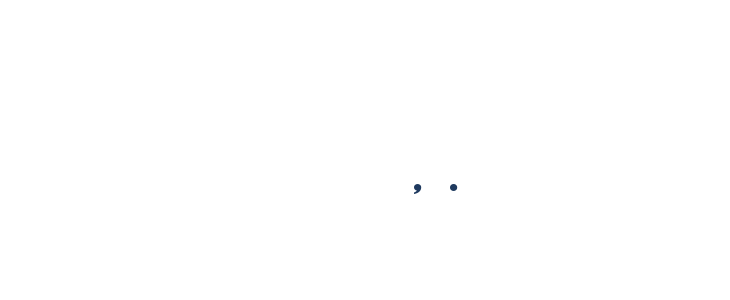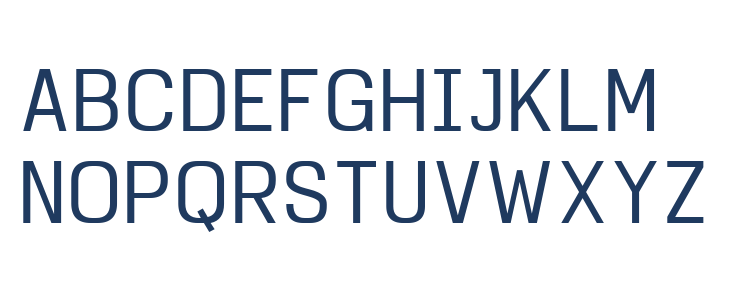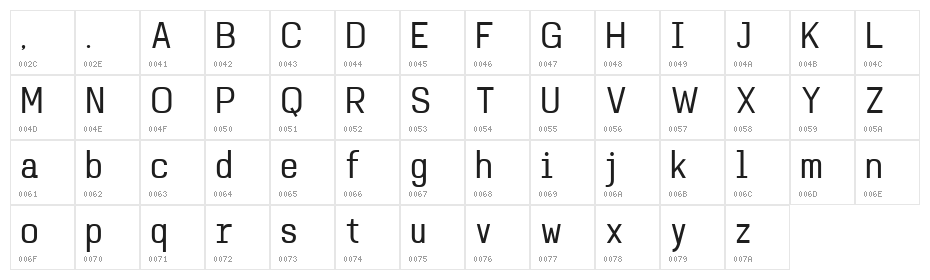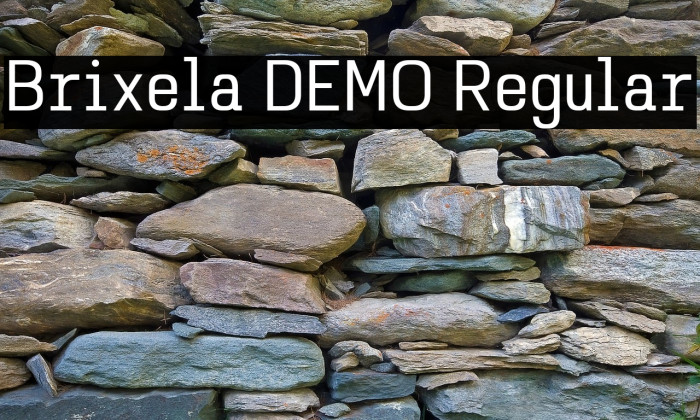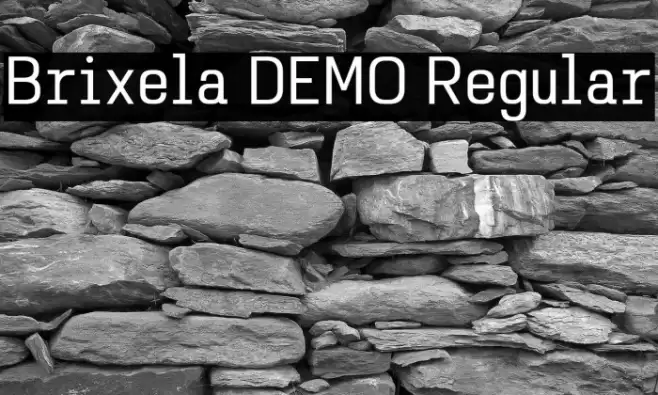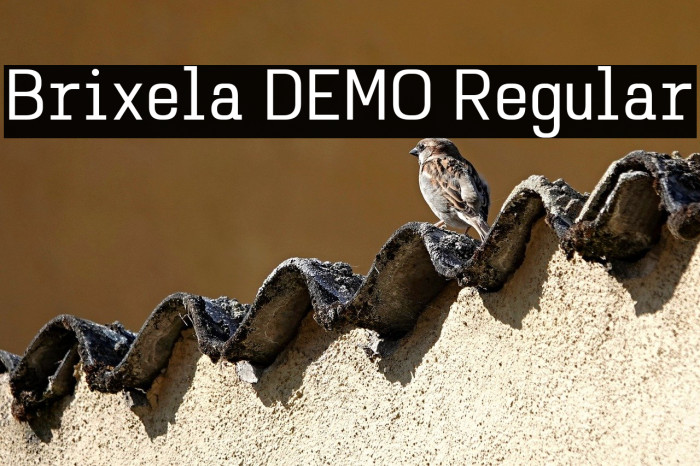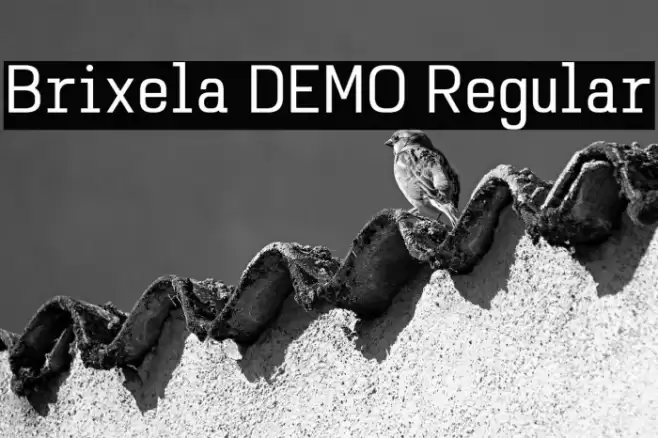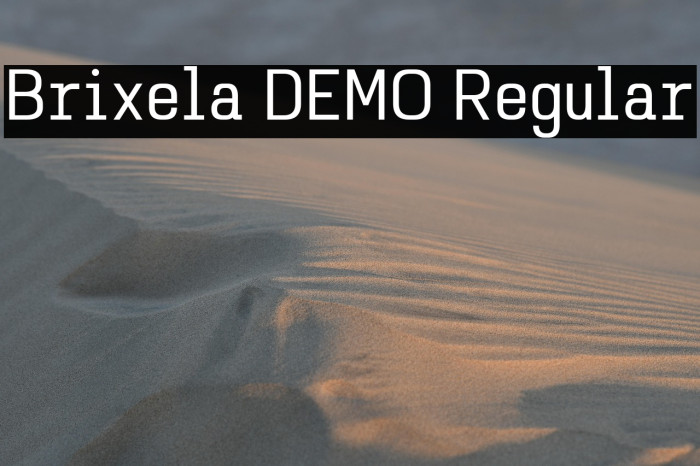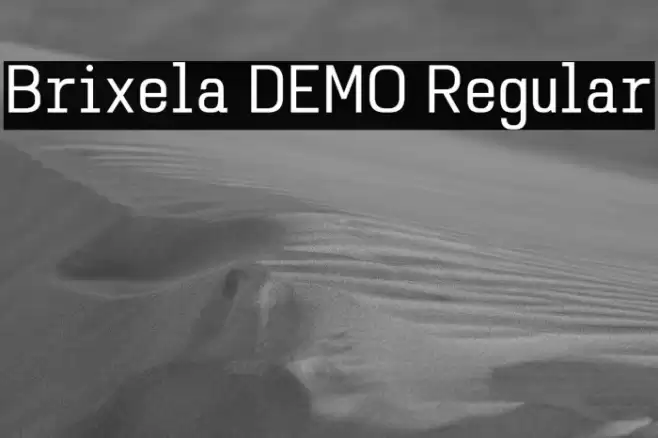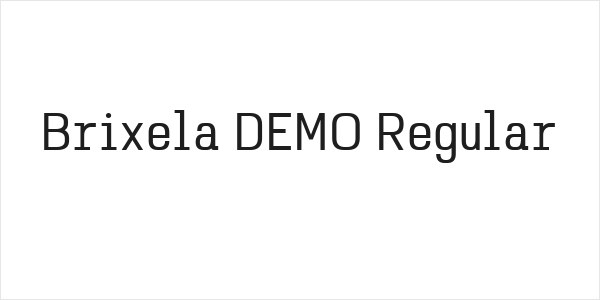
Brixela DEMO Regular Font
Brixela DEMO Regular Description
A clean, modern sans-serif font with a slightly condensed appearance and uniform stroke width, featuring subtle rounded edges.
Brixela DEMO